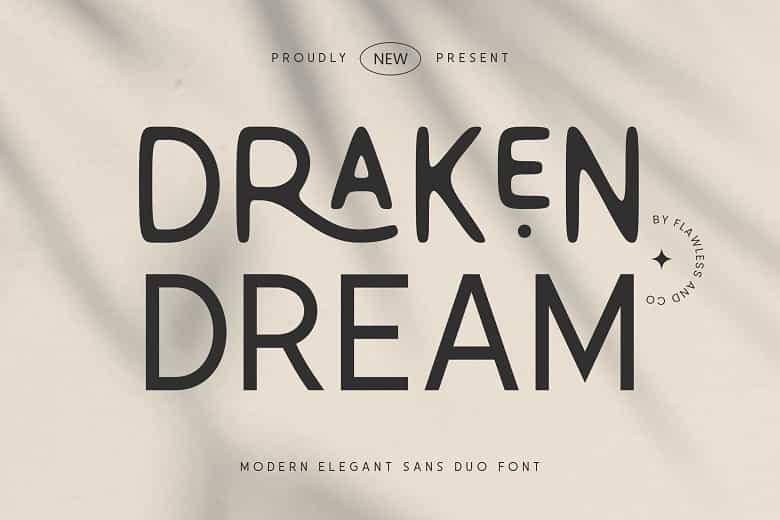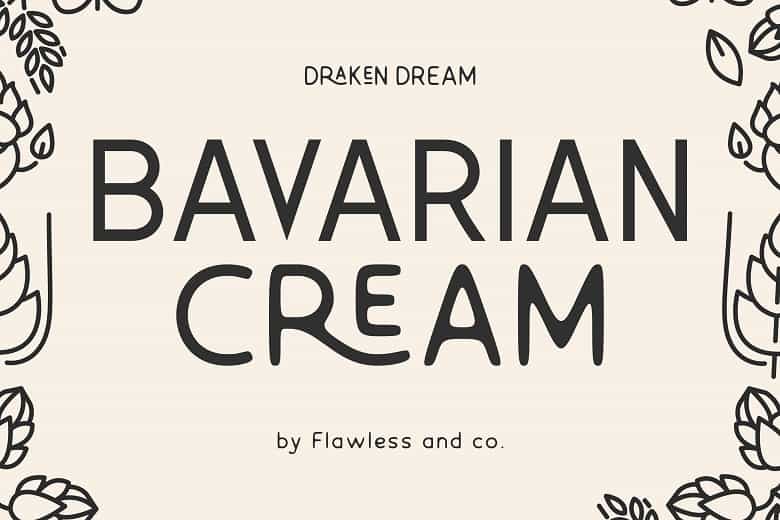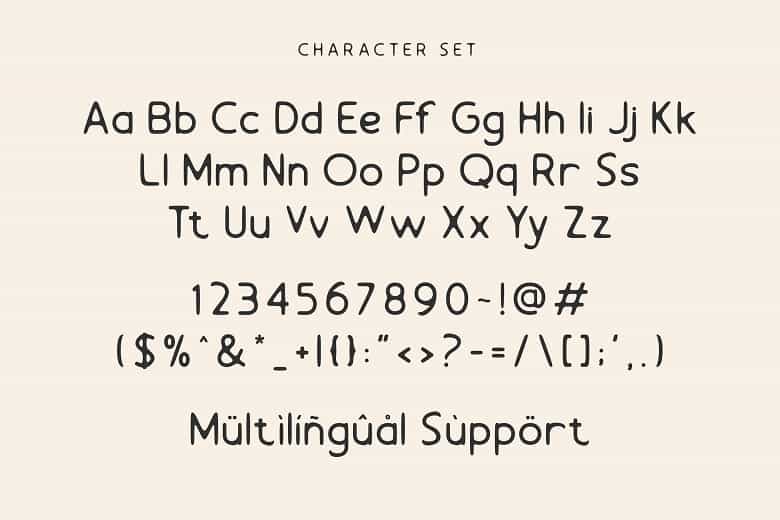
Draken Dream is a new modern elegant sans duo font. Get ready for a new piece of modern elegance with “Draken Dream,” a crisp sans-serif font pair that exudes style and style. Thanks to the two types of the Draken Dream font, the regular and the smooth, this is a set that can be used in various tasks.